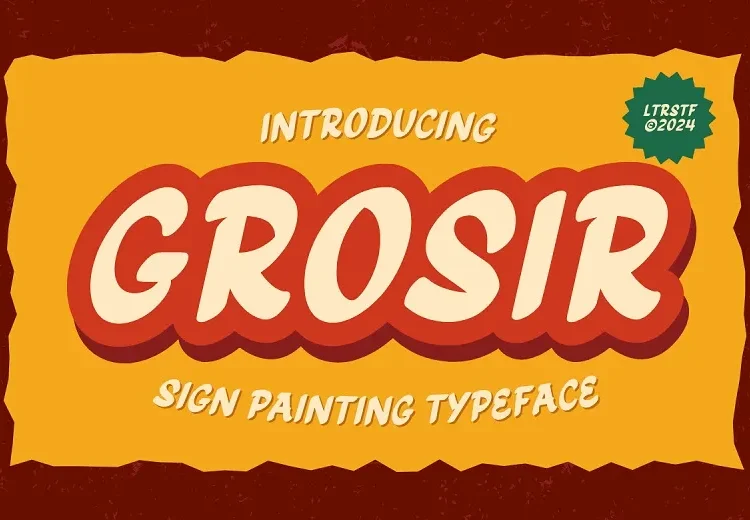
Grosir Font
Introducing “Grosir Font,” a typeface inspired by the vintage, hand-painted signs commonly seen in grocery stores of the past. This font captures the essence of old-school charm, making it perfect for adding a nostalgic touch to your designs.
Whether you’re working on a social media promotion or any other creative project, Grosir Font brings a sense of warmth and simplicity, making your work both easier and more enjoyable.